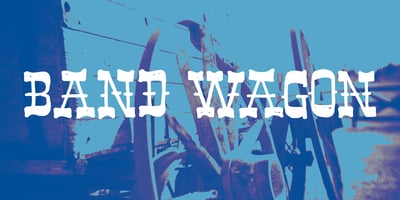
Band Wagon
Band Wagon font
Band Wagon Font Family was designed by David Kerkhoff and published by Hanoded. Band Wagon contains 2 styles and family package options. I don’t know why exactly, but I felt the need to create a Western font. Band Wagon is a handcrafted cowboy font. It comes with curly slabs, spurs and ye olde outlaw spirit.